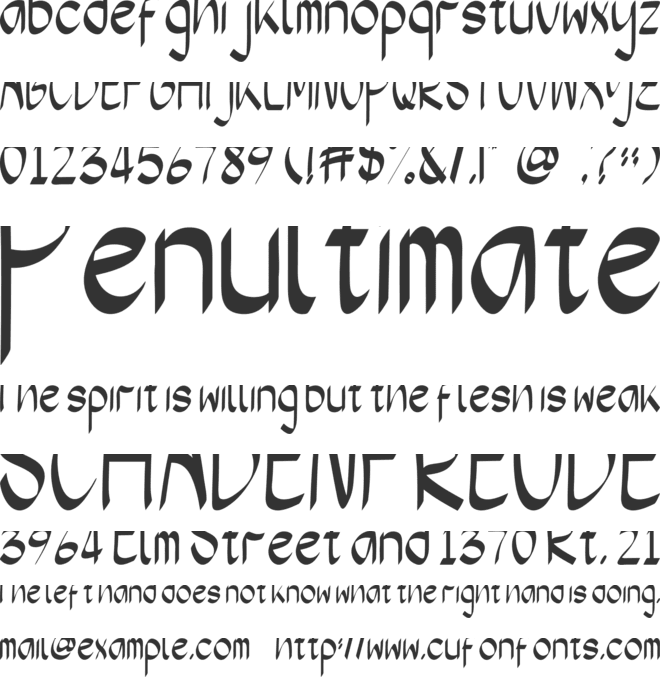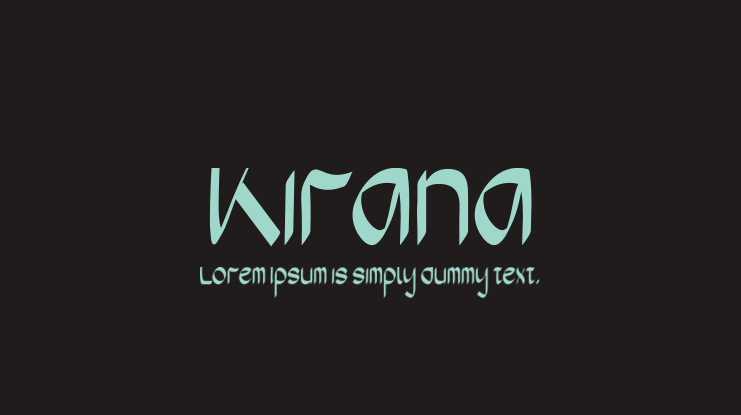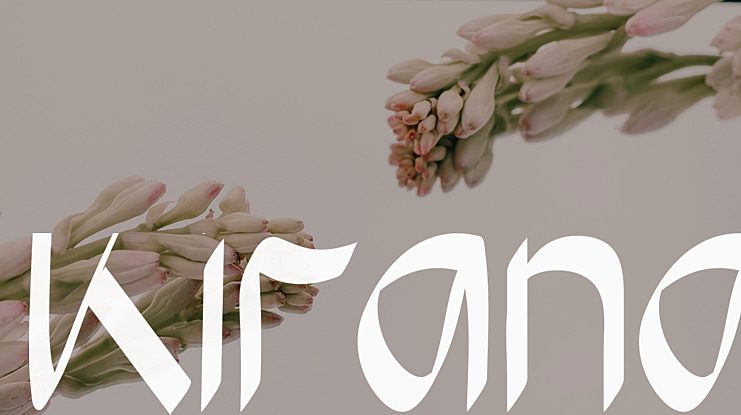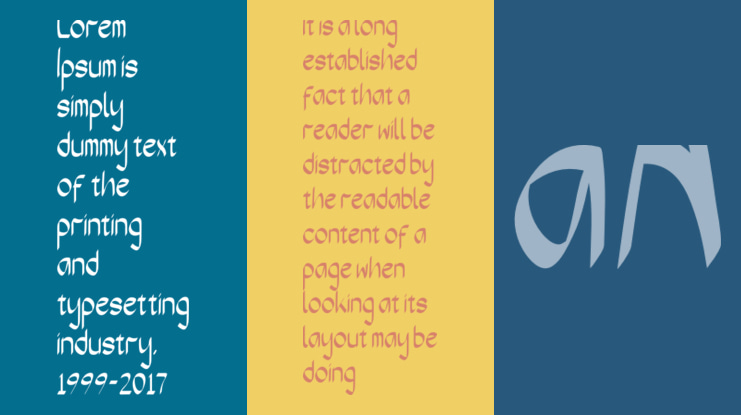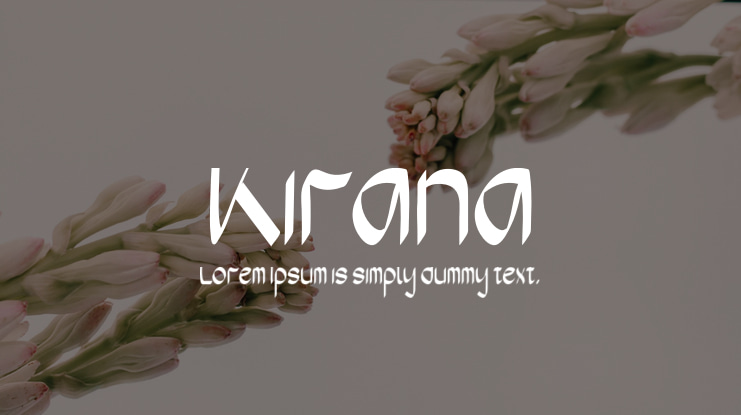
Kirana Font
Muhammad Nashrul Aziz
Kirana is a cool and modern looking display font. It is defined by smooth curves and is perfect for fashion branding or editorial designs. Add it confidently to your projects, and you will love the results.